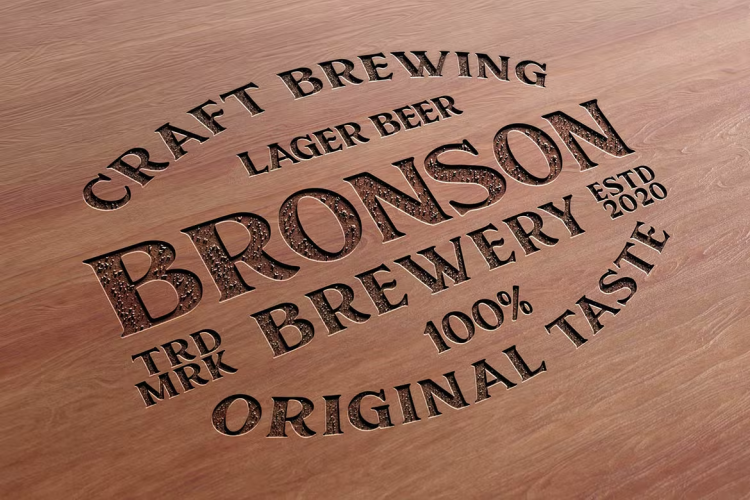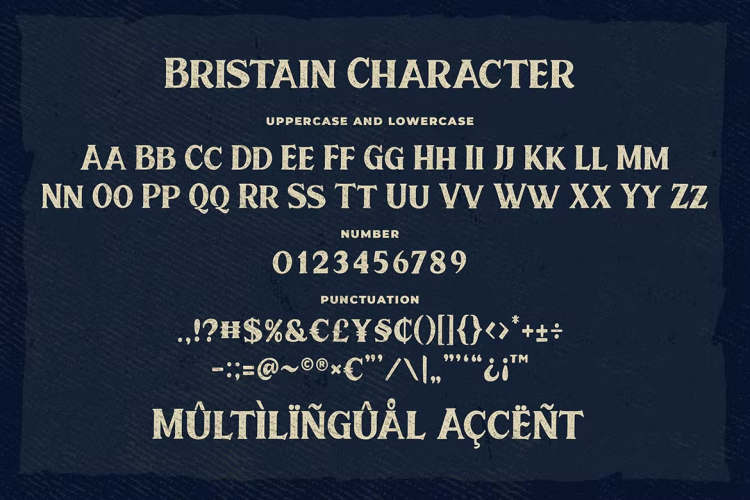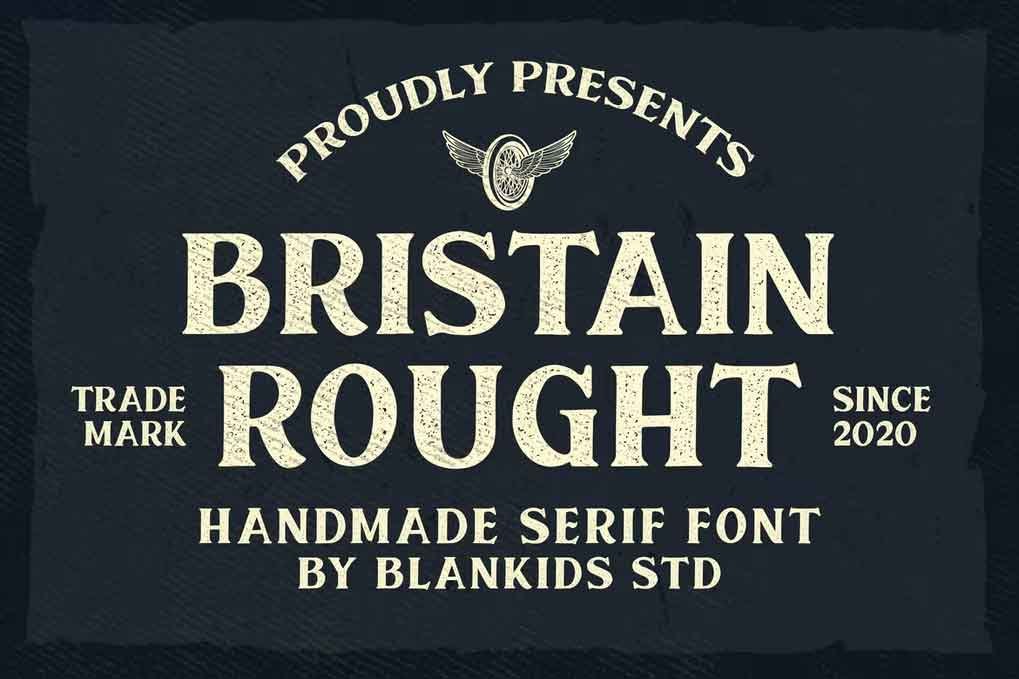
Bristain Rought Serif Font
Introducing of our new product the name is Bristain Rought Serif Font. Bristain Rought inspired by modern vintage poster this font is a fun theme very good for poster, apparel, badge, label, emblem etc
Bristain Rought Serif Font is a Serif Fonts font that brings a professional and versatile look to your projects. Introducing of our new product the name is Bristain Rought Serif Font.